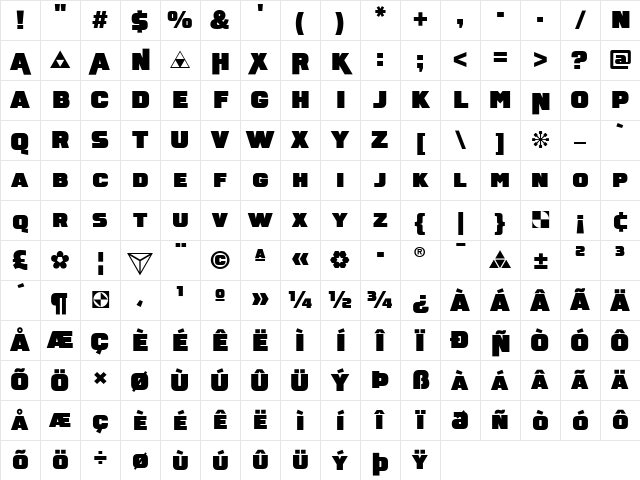
Complete NeometraCaps Black Regular glyph index. Displaying only characters natively supported by NeometraCaps Black Regular font.
NeometraCaps Black is a composed and adaptable typeface that performs quietly and consistently across a wide range of design contexts.